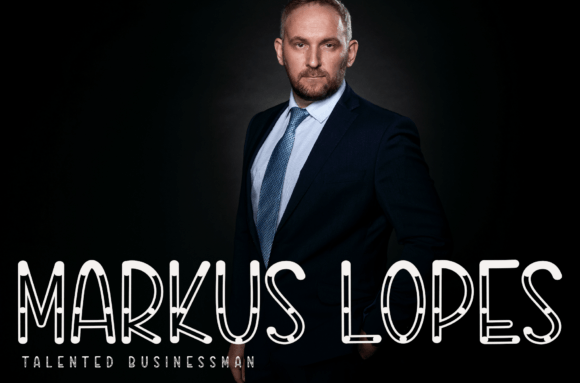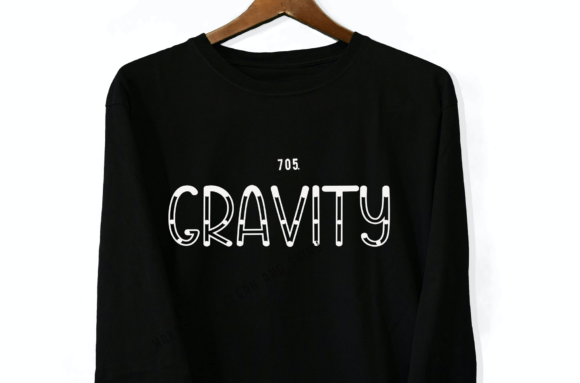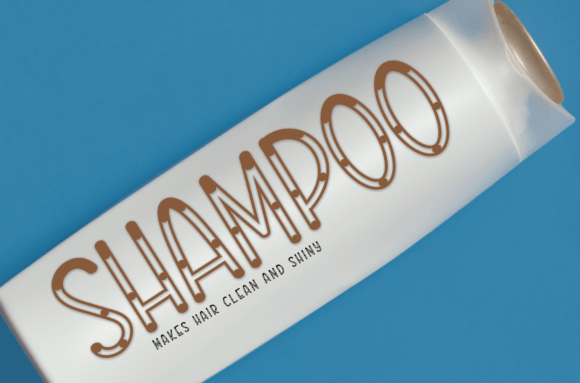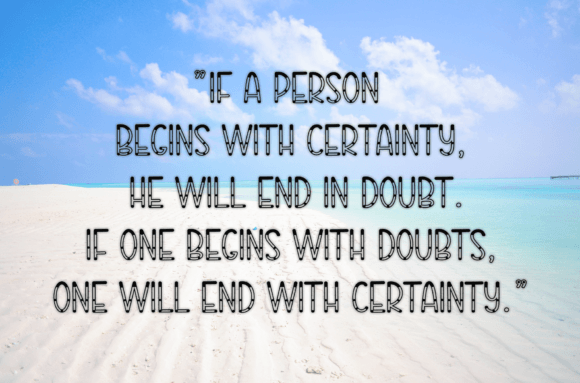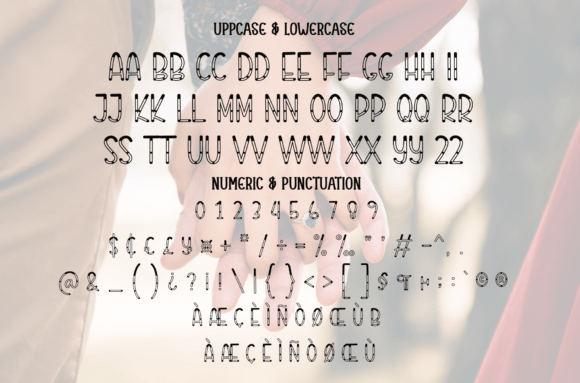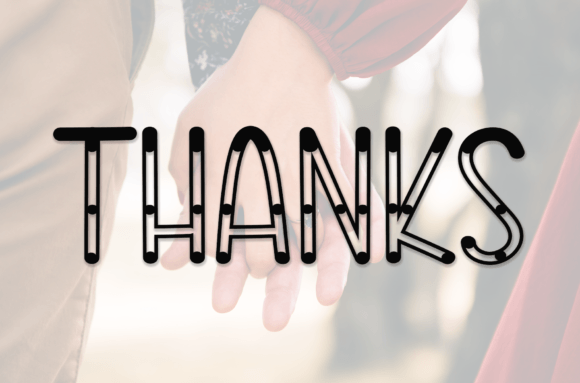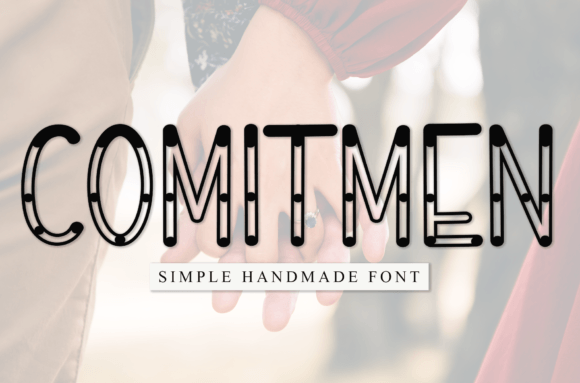
Introducing Comitmen Font: The Sweet and Friendly Handwritten Display Font
Are you looking for a font that can add a touch of warmth and personality to your designs? Look no further than Comitmen Font! This sweet and friendly handwritten display font is perfect for creating beautiful wedding invitations, cards, and other designs that require a fun and playful touch.
What is Comitmen Font?
Comitmen Font is a carefully crafted handwritten display font that exudes a sense of freshness and neatness. Its unique and charming lettering style makes it an ideal choice for designers and crafters who want to add a personal touch to their work. Whether you’re creating wedding invitations, greeting cards, or social media graphics, Comitmen Font is sure to make your designs stand out.
Key Features of Comitmen Font
• Sweet and Friendly Style: Comitmen Font boasts a warm and approachable style that’s perfect for creating designs that require a personal touch.
• Handwritten Display Font: This font features a beautiful handwritten style that’s perfect for creating eye-catching headlines and titles.
• Fresh and Neat: Comitmen Font is designed to be clean and easy to read, making it perfect for use in a variety of design applications.
• Versatile: This font can be used for a wide range of design projects, from wedding invitations and cards to social media graphics and more.
Use Cases for Comitmen Font
Comitmen Font is a versatile font that can be used for a wide range of design projects. Here are some use cases to get you started:
• Wedding Invitations: Add a touch of elegance and sophistication to your wedding invitations with Comitmen Font.
• Greeting Cards: Create beautiful and personalized greeting cards for special occasions like birthdays, anniversaries, and holidays.
• Social Media Graphics: Use Comitmen Font to create eye-catching social media graphics that showcase your brand’s personality.
• Logos and Branding: Comitmen Font can be used to create unique and memorable logos and branding materials.
Why Choose Comitmen Font?
So why choose Comitmen Font for your design projects? Here are just a few reasons:
• Unique Style: Comitmen Font offers a unique and distinctive style that’s sure to make your designs stand out.
• Easily Readable: This font is designed to be easy to read, making it perfect for use in a variety of design applications.
• High-Quality: Comitmen Font is a high-quality font that’s designed to deliver exceptional results.
Tips for Using Comitmen Font
Here are a few tips for getting the most out of Comitmen Font:
• Use it for Headlines: Comitmen Font is perfect for use in headlines and titles, where its unique style can really shine.
• Experiment with Colors: Try pairing Comitmen Font with different colors to create unique and eye-catching designs.
• Mix and Match: Don’t be afraid to mix and match Comitmen Font with other fonts to create interesting and dynamic designs.
In conclusion, Comitmen Font is a sweet and friendly handwritten display font that’s perfect for adding a touch of warmth and personality to your designs. With its unique style, versatility, and high-quality design, Comitmen Font is an excellent choice for designers and crafters looking to create beautiful and memorable designs. So why wait? Download Comitmen Font today and start creating stunning designs that showcase your creativity!